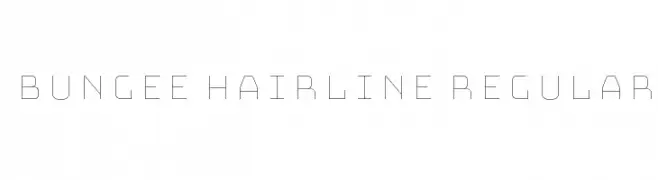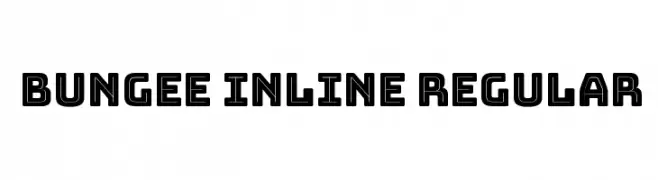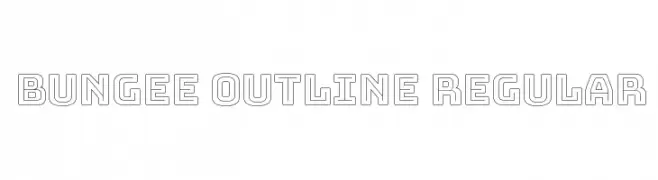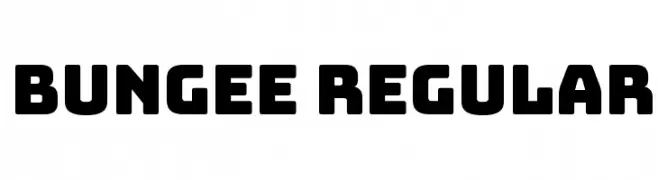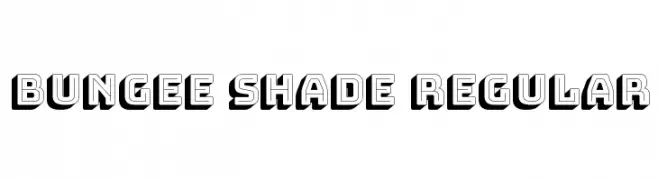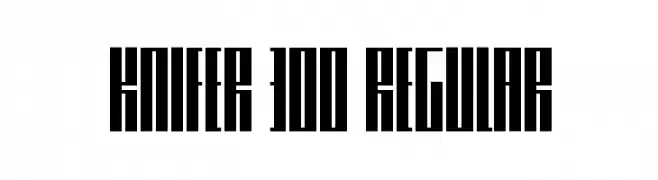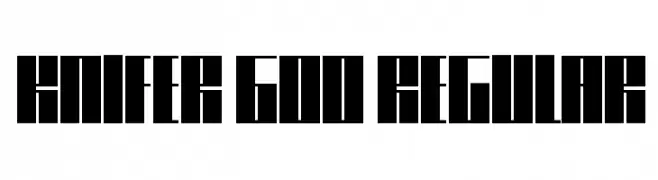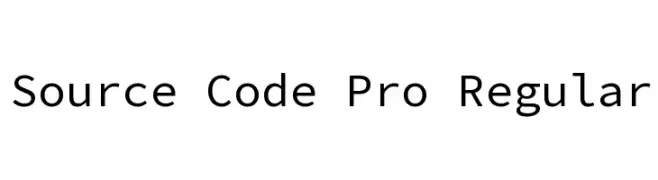
A bold, geometric font with a blocky, modern design.
A bold, geometric font with uniform thickness and a modern, industrial style.
A modern, geometric sans-serif font with uniform stroke widths.
A bold, 3D shadowed font with a playful, retro style.
A bold, geometric font with a playful inline style.
A bold, playful font with wide, rounded characters and a modern look.
A bold, outlined font with geometric shapes and clean lines, perfect for modern designs.
A geometric, minimalistic font with thin, hairline strokes and a modern appearance.
A clean, monospaced font ideal for coding with consistent stroke thickness.
A modern sans-serif font with open, rounded letterforms and uniform stroke thickness.